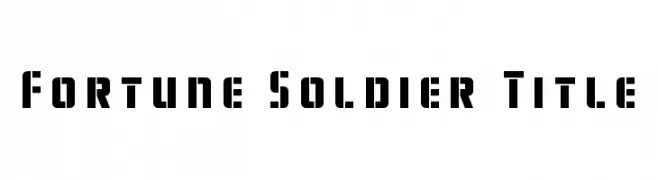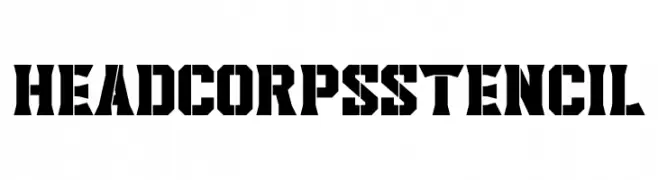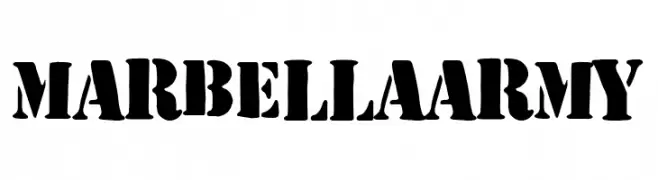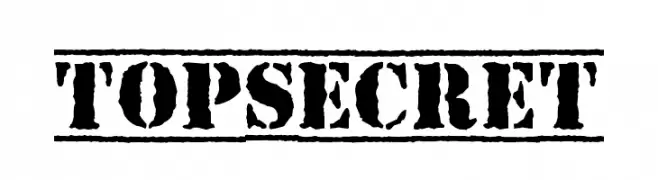
A rugged, distressed font with a vintage, typewriter-like appearance.
A bold, geometric font with strong, blocky characters ideal for impactful headlines.
A bold, stencil-style font with geometric shapes and uniform thickness.
A bold, stencil-style font with industrial and rugged characteristics.
A bold, stencil-style font with strong, angular lines and distinct cutouts.
A hollow, stencil-like font with a modern, structured design.
A bold, stencil-style font with sharp, angular cuts and a strong, geometric design.
Bold, stencil-like font with a rugged, distressed appearance.
A bold, geometric slab serif font with an industrial feel.
A bold, distressed stencil font with a vintage, industrial feel.